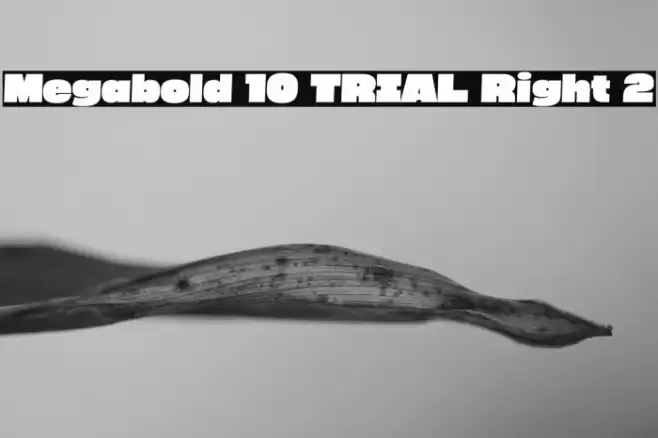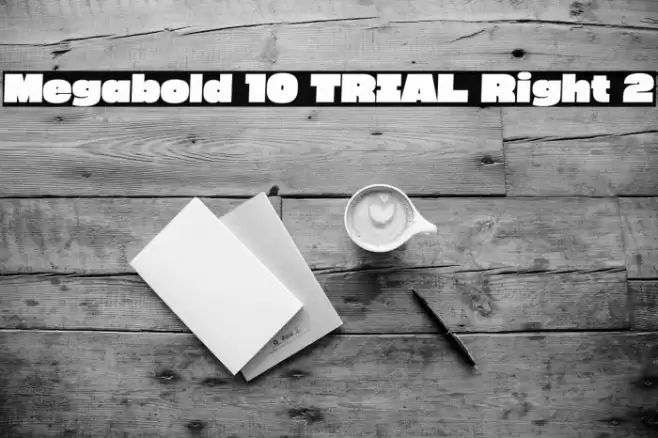
Megabold 1.0 TRIAL Right 2 Font
Megabold 1.0 TRIAL Right 2 Description
This font is characterized by its extremely bold and heavy appearance, making it highly impactful and attention-grabbing. The letters are uniformly thick, with minimal contrast between the strokes, giving it a solid and robust look. The uppercase and lowercase letters maintain a consistent weight, contributing to a cohesive visual style. The numbers and special characters follow the same design principles, ensuring uniformity across all glyphs. The font's geometric shapes and clean lines make it suitable for modern and contemporary designs. Its boldness makes it ideal for headlines and titles where maximum visibility is required.
A bold, heavy font with uniform thickness and geometric shapes, perfect for impactful headlines from Uncategorized fonts.
- Proposed Projects: This font is ideal for projects that require strong visual impact, such as posters, banners, and advertising materials. It can also be used for branding and logo design where a bold statement is needed.